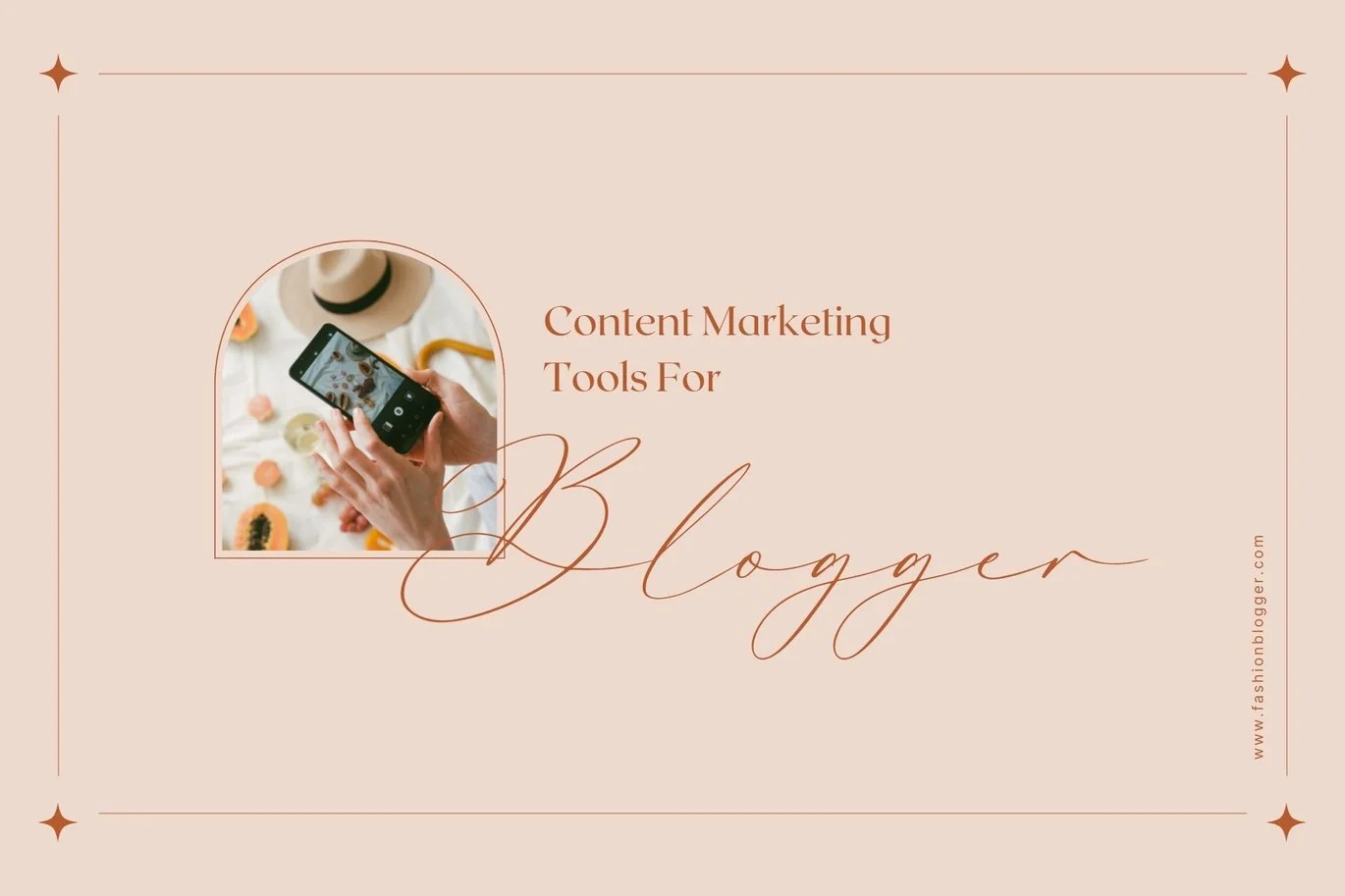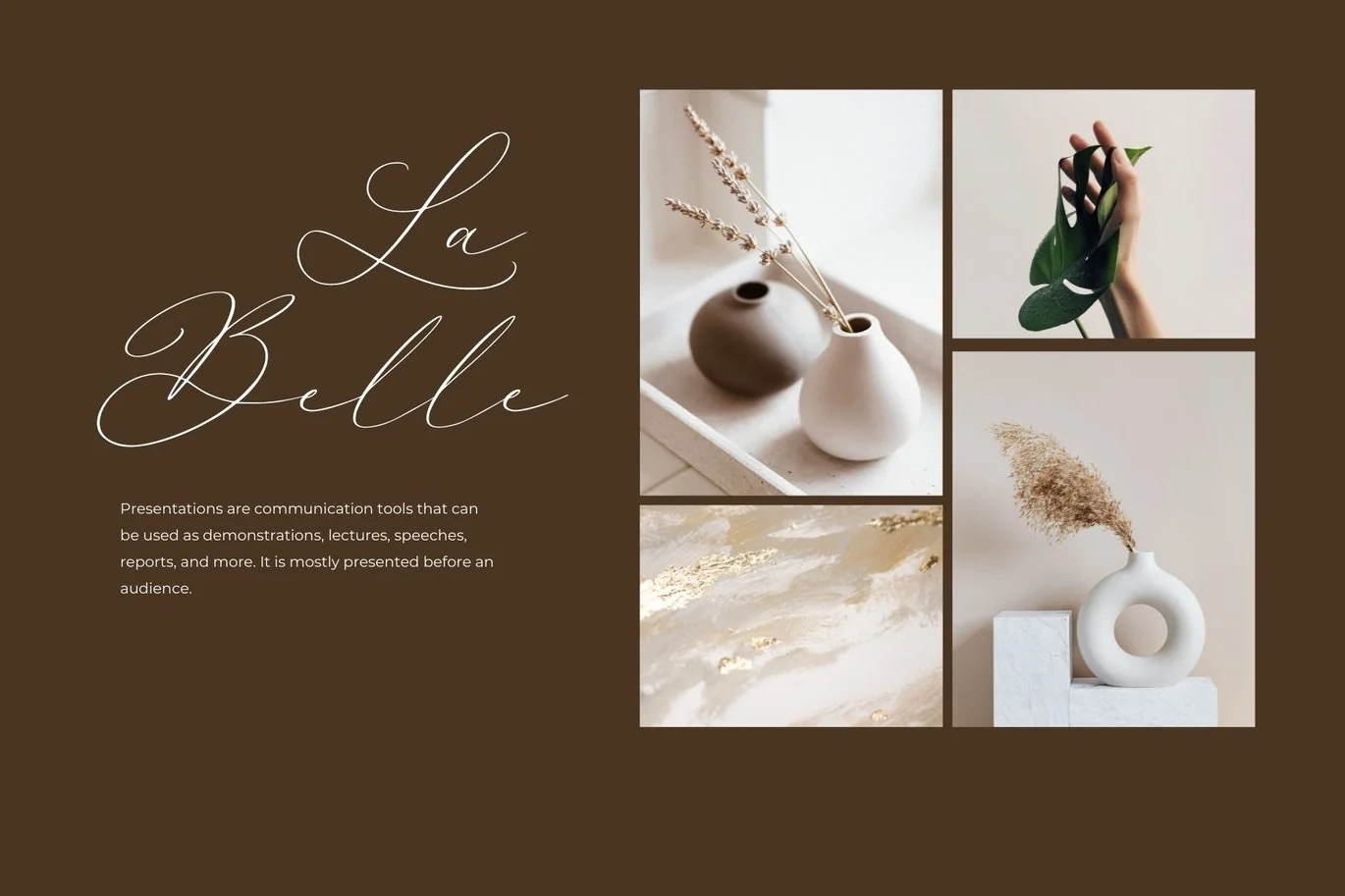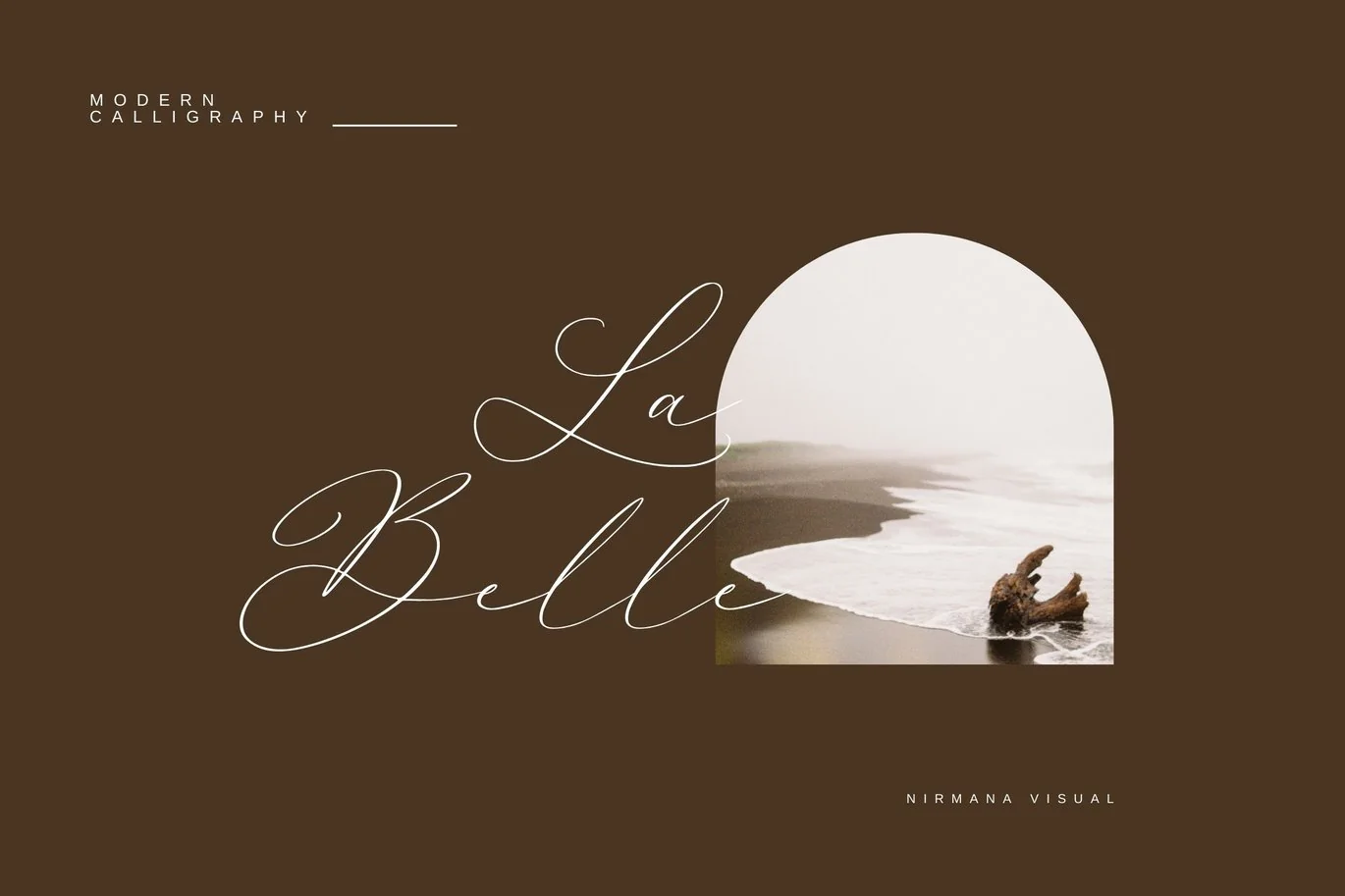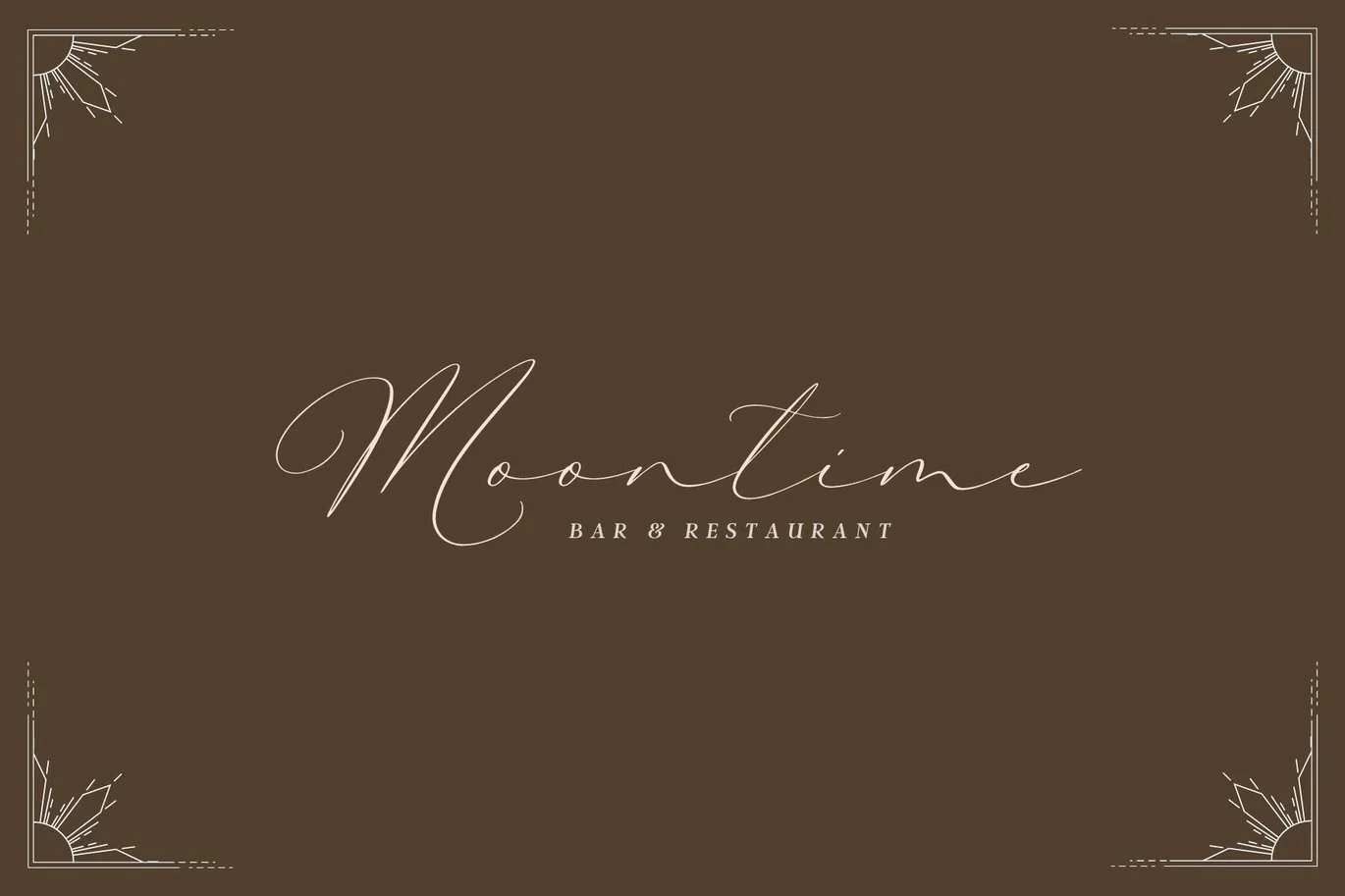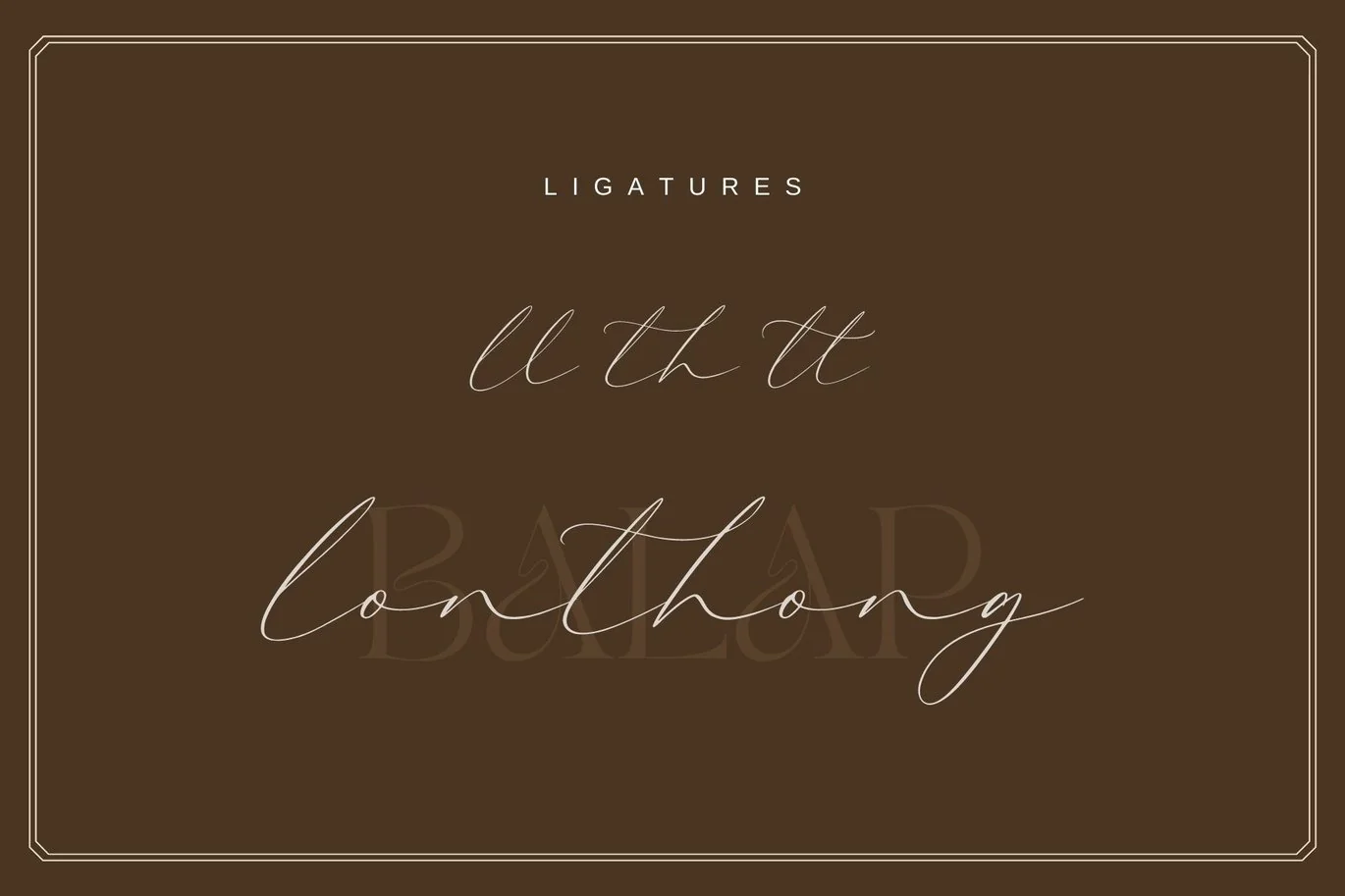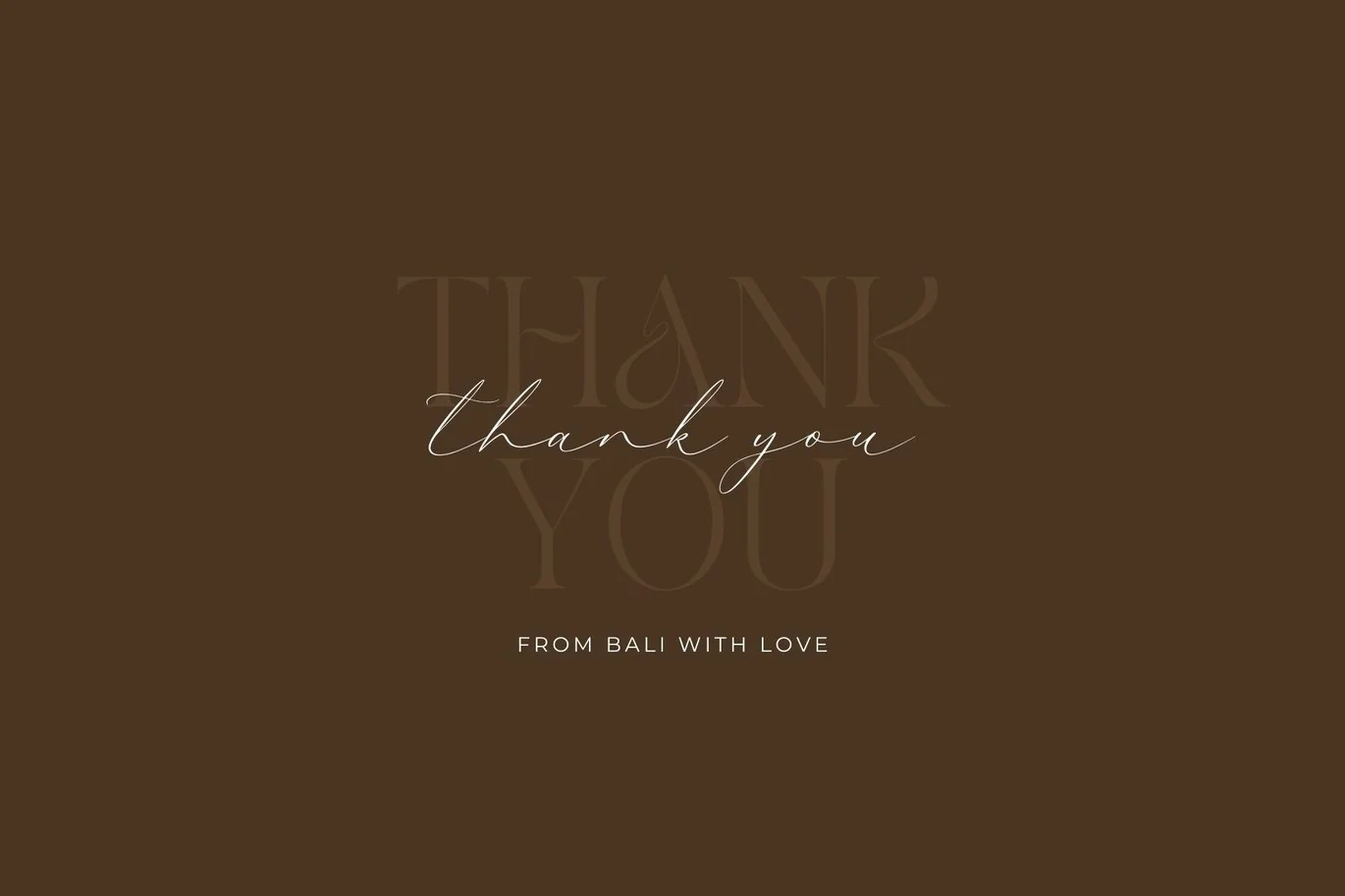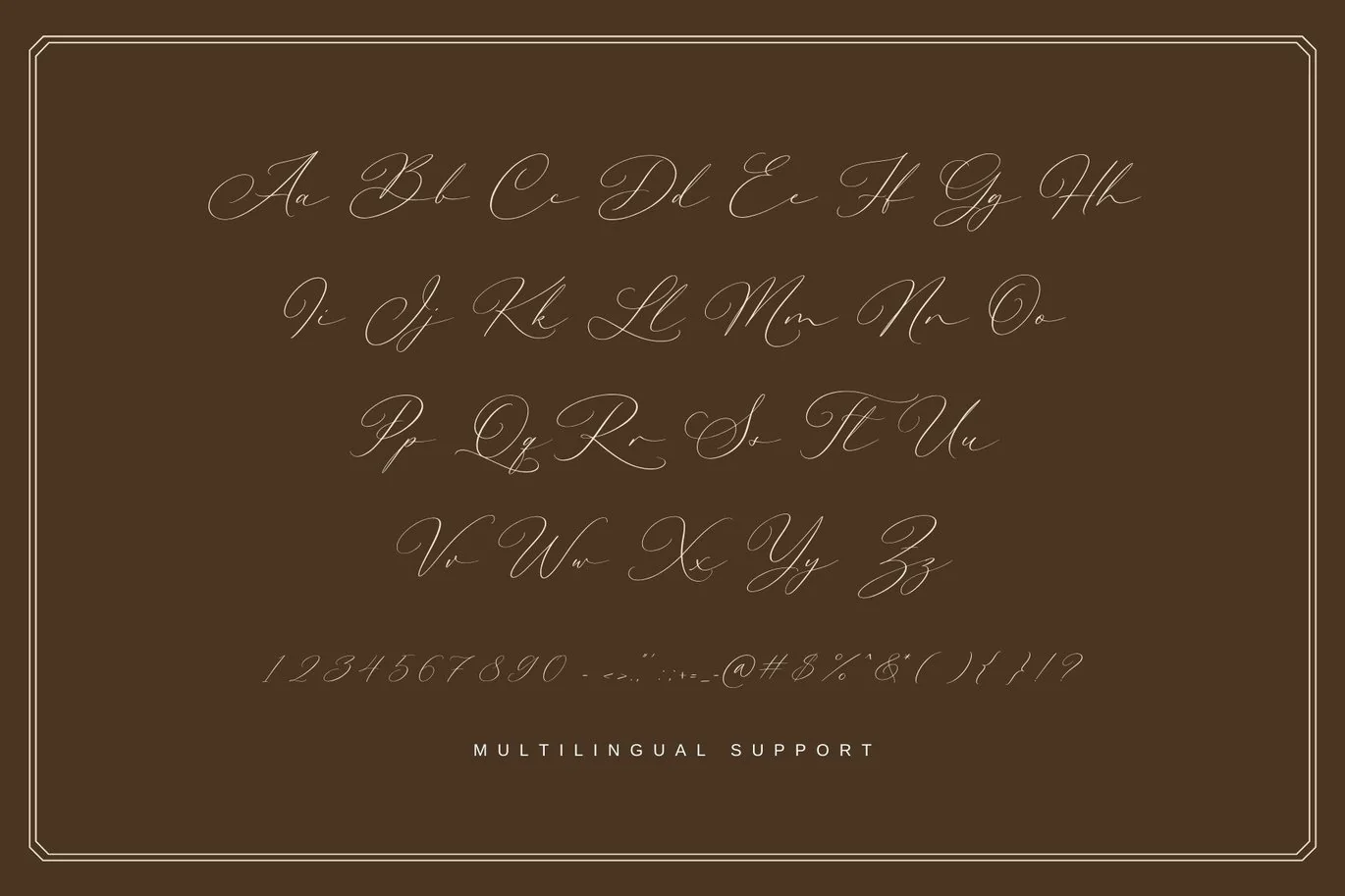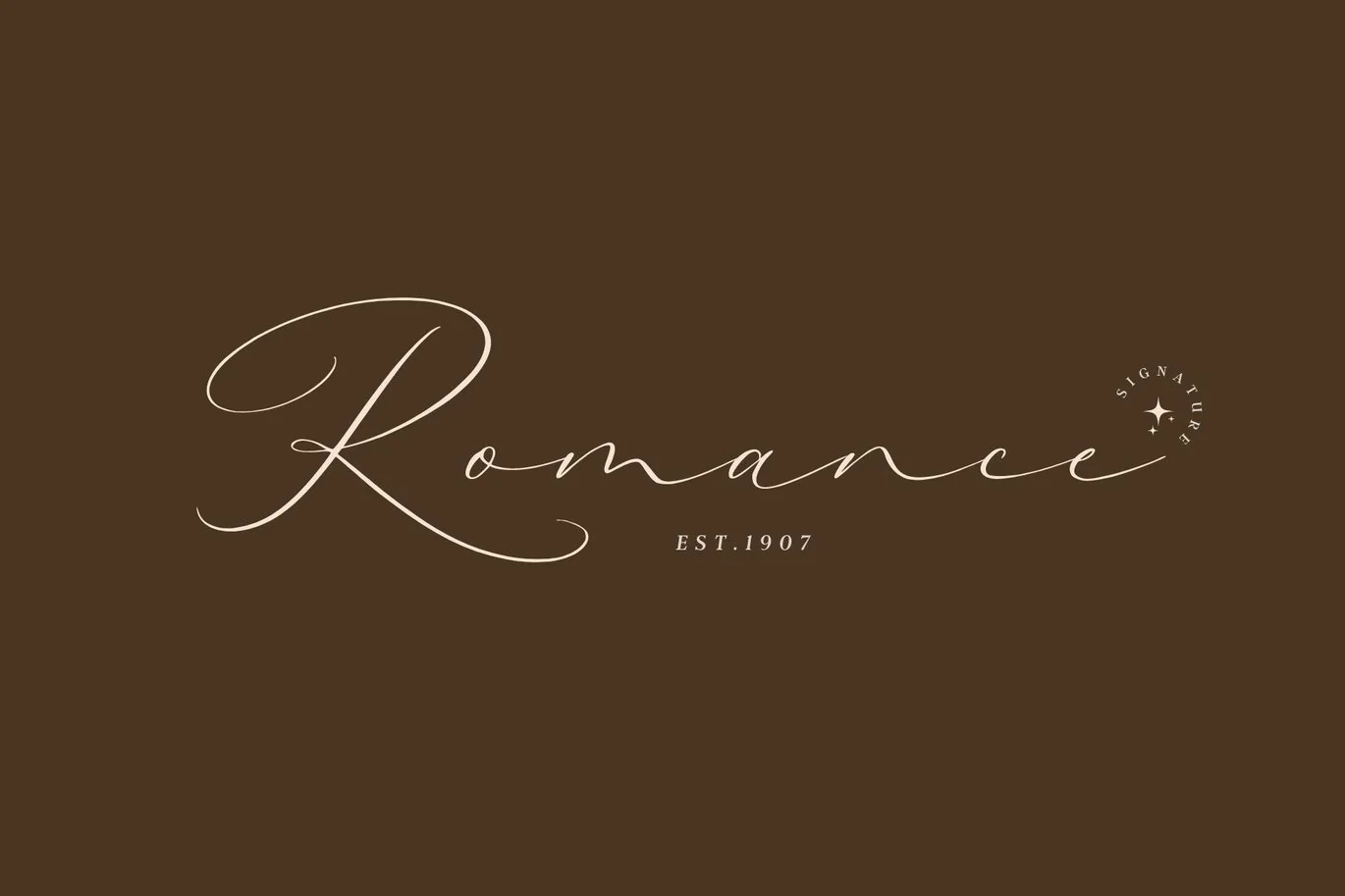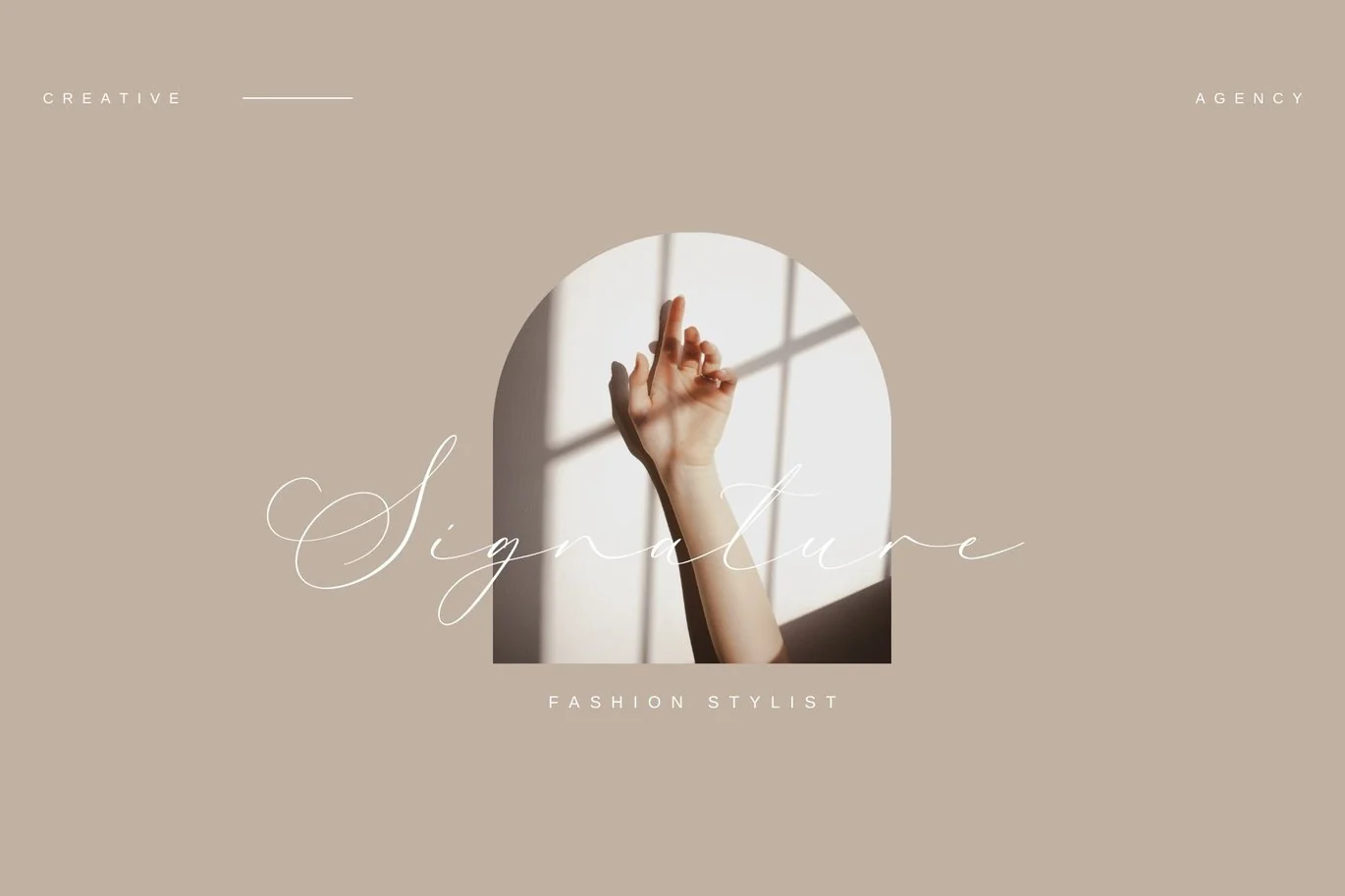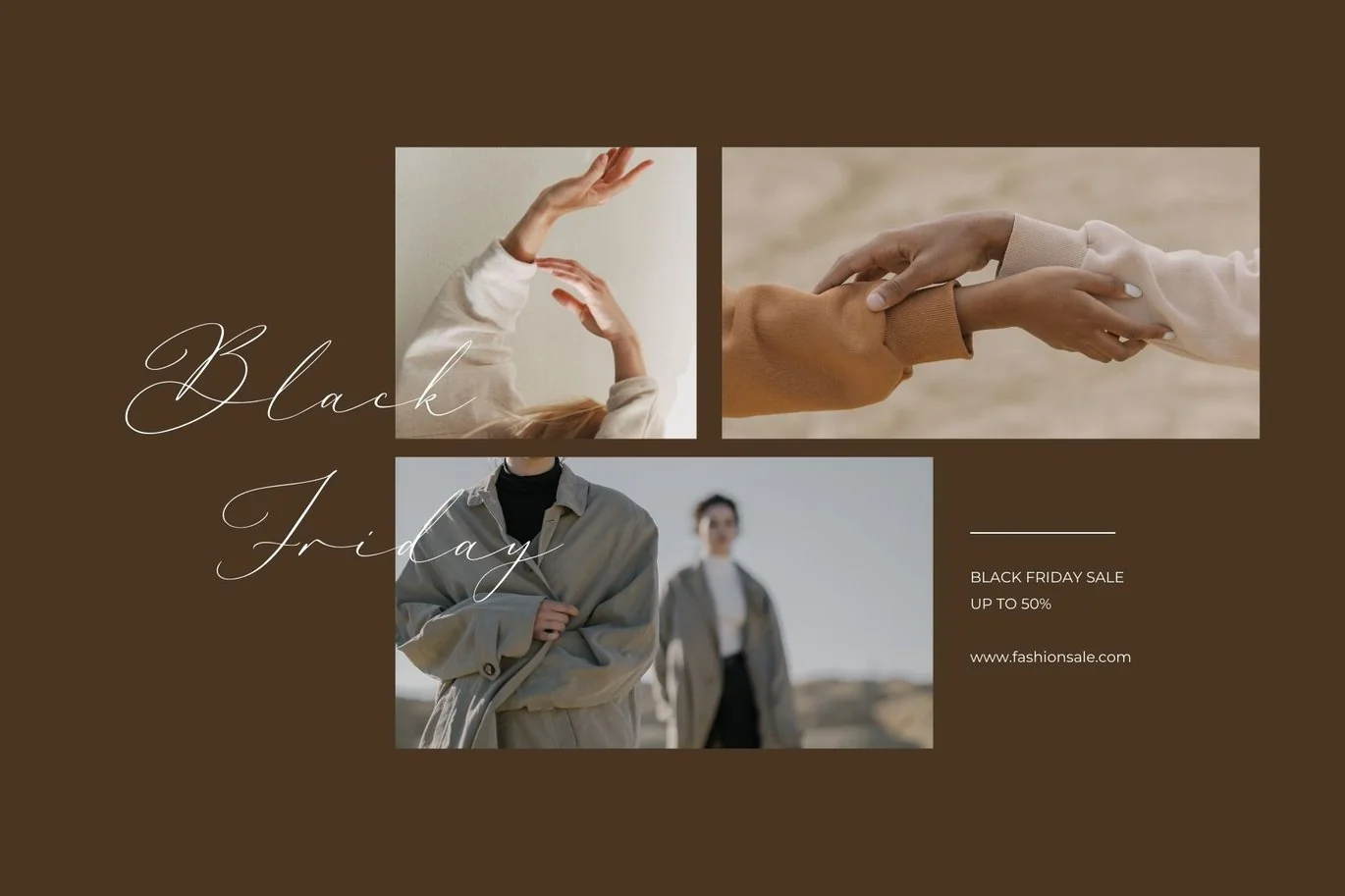
La Belle Signature – Wedding Font
La Belle Signature is a Beautiful script font carefully created with a touch of romantic.
This is a beautiful combination of timeless elegance and authentic calligraphy
-Multilingual Support
-Ligatures